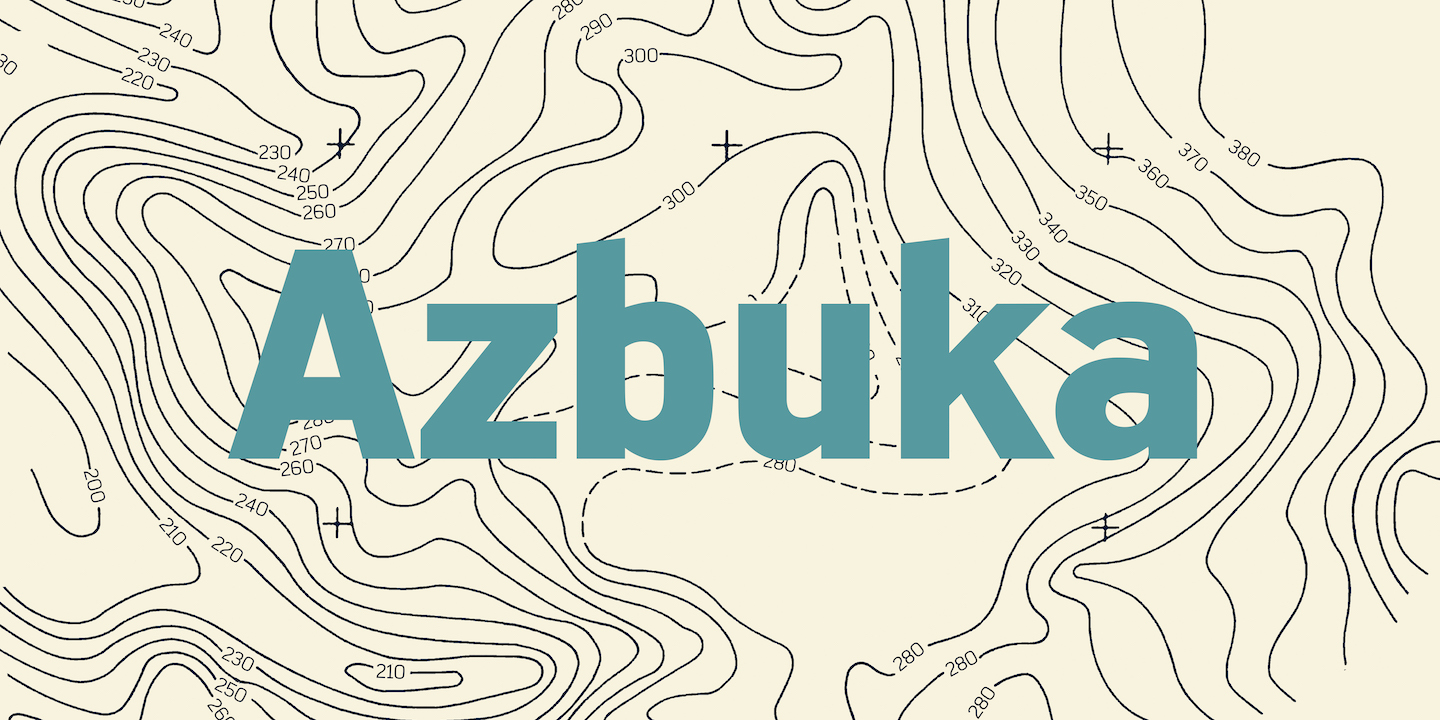
Azbuka Font is perfect for Russian cultural center branding, Cyrillic language learning materials, Slavic heritage museum displays, Eastern Orthodox church publications, traditional Russian restaurant menus, authentic Russian literature presentations, Slavic cultural festival promotions, Russian language academic publications, traditional folk art gallery exhibitions, and distinguished Russian cultural institution identities. Its authentic Cyrillic character makes it ideal for projects requiring Russian authenticity and Slavic cultural sophistication.
What makes Azbuka Font exciting is its traditional embodiment of Russian heritage and Cyrillic elegance with authentic letterforms and Slavic characteristics that capture the essence of Russian culture and Eastern European tradition excellence. The font features traditional Cyrillic proportions, Russian-inspired details, and cultural character construction that create authentic Slavic atmosphere and Russian appeal. Its distinguished personality brings cultural depth and heritage authenticity to contemporary designs while maintaining the clarity essential for Cyrillic communications and Russian presentations. The carefully crafted traditional elements ensure cultural accuracy while preserving the distinctive character that embodies the essence of Russian tradition and Slavic excellence.
Azbuka Font comes in multiple cultural variations including Light, Regular, Medium, Bold, and Traditional styles. Each family member maintains the distinctive Cyrillic character while offering comprehensive flexibility for Russian typography and Slavic cultural brand system development. The complete font family includes Cyrillic punctuation marks, Russian symbols, and traditional decorative elements that provide essential tools for authentic Russian communication excellence and cultural presentation quality.
Whether you're developing Russian cultural brands, Slavic organizations, or Eastern European heritage projects, Azbuka Font Free Download provides the cultural authenticity needed to communicate with Russian communities and Slavic culture enthusiasts who appreciate Russian tradition and Cyrillic sophistication. The font's traditional appeal resonates with Russian scholars, cultural professionals, and Slavic heritage educators seeking authentic Russian credibility and cultural sophistication. Its comprehensive character set includes Russian symbols and Cyrillic marks, making it perfect for creating complete Russian brand systems and memorable Slavic storytelling across diverse cultural applications and heritage-focused design projects that celebrate Russian culture and Eastern European excellence.